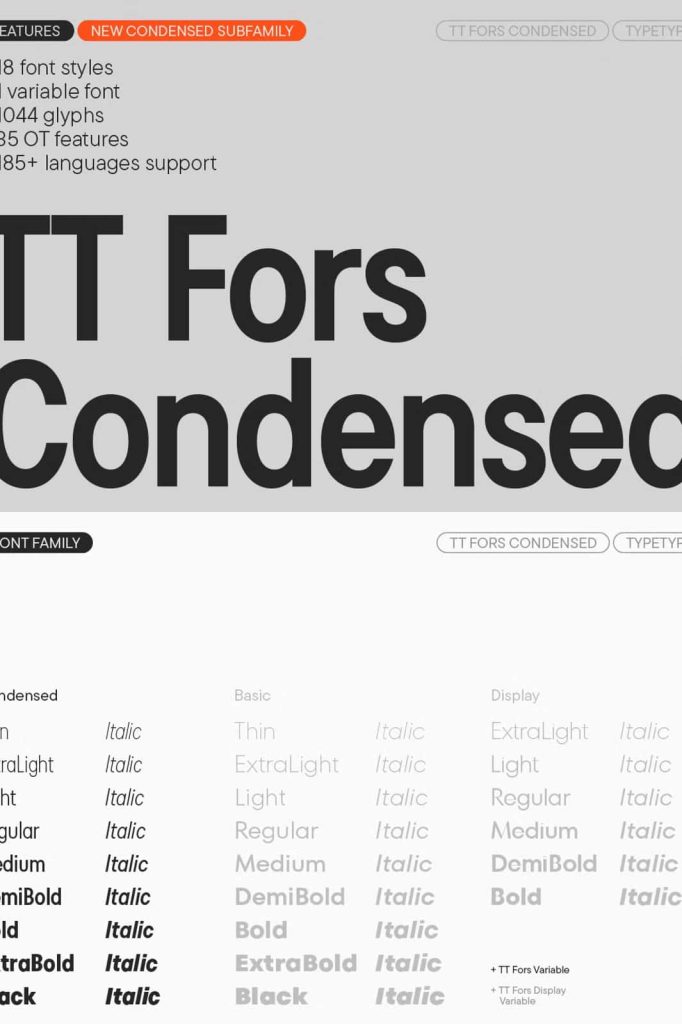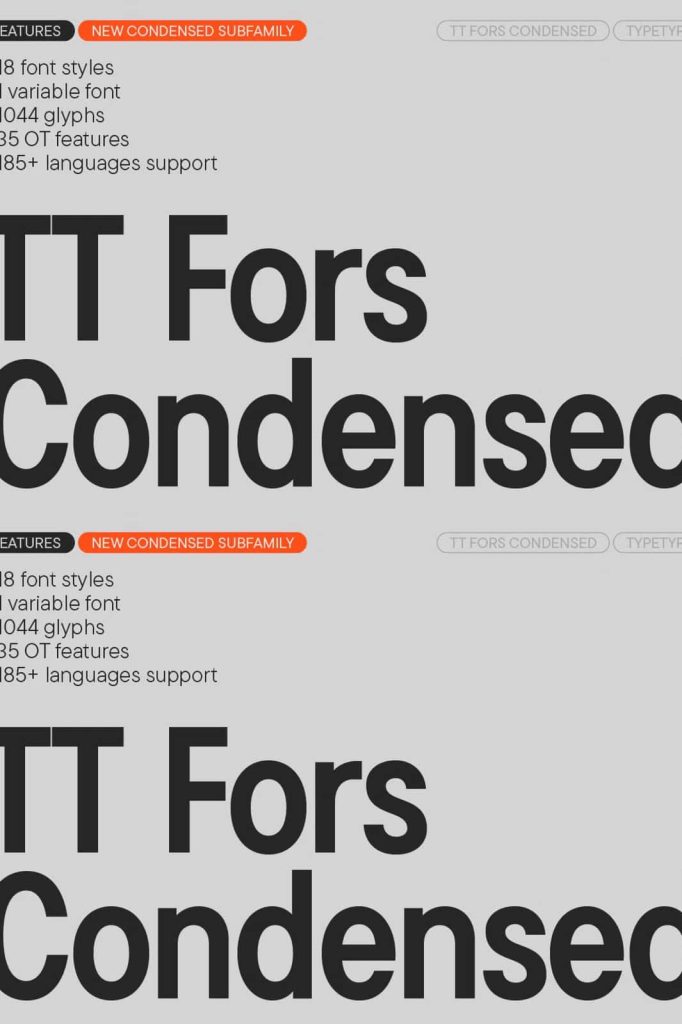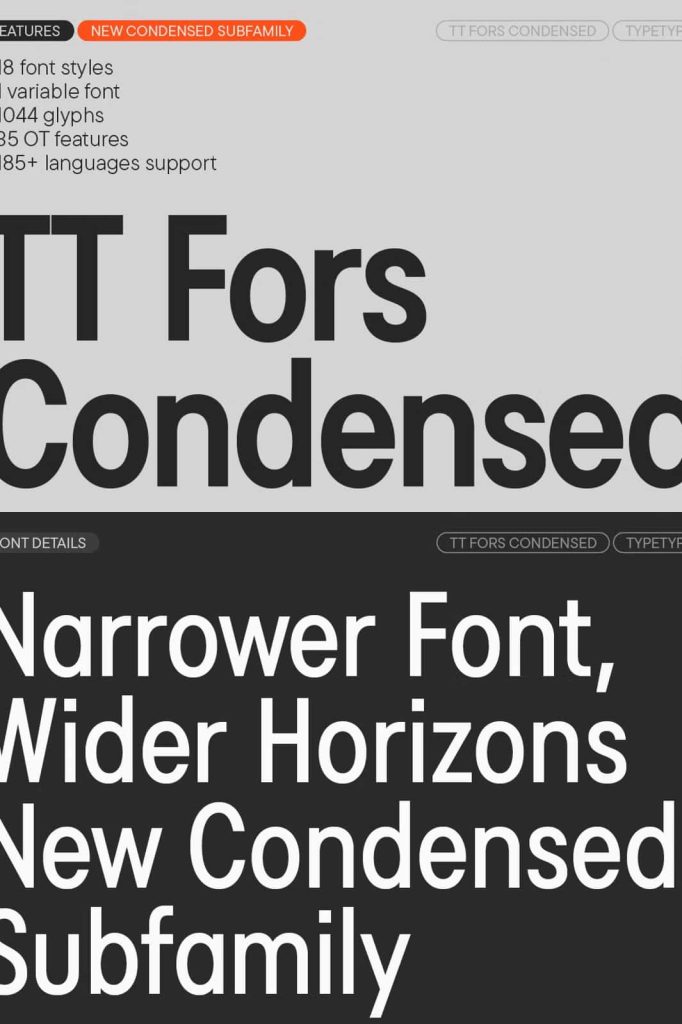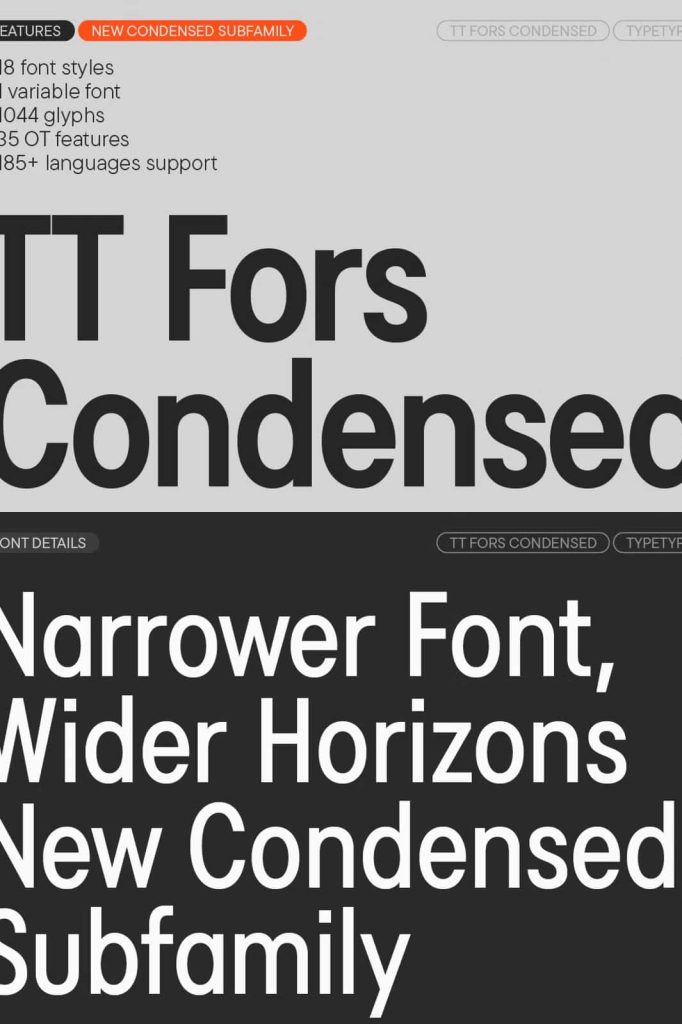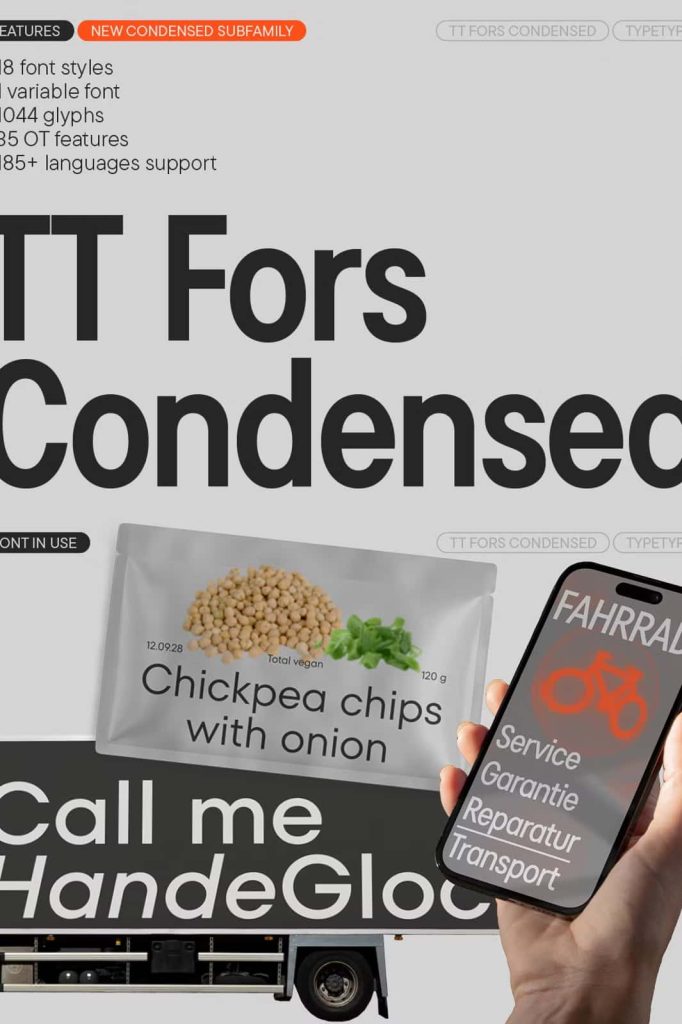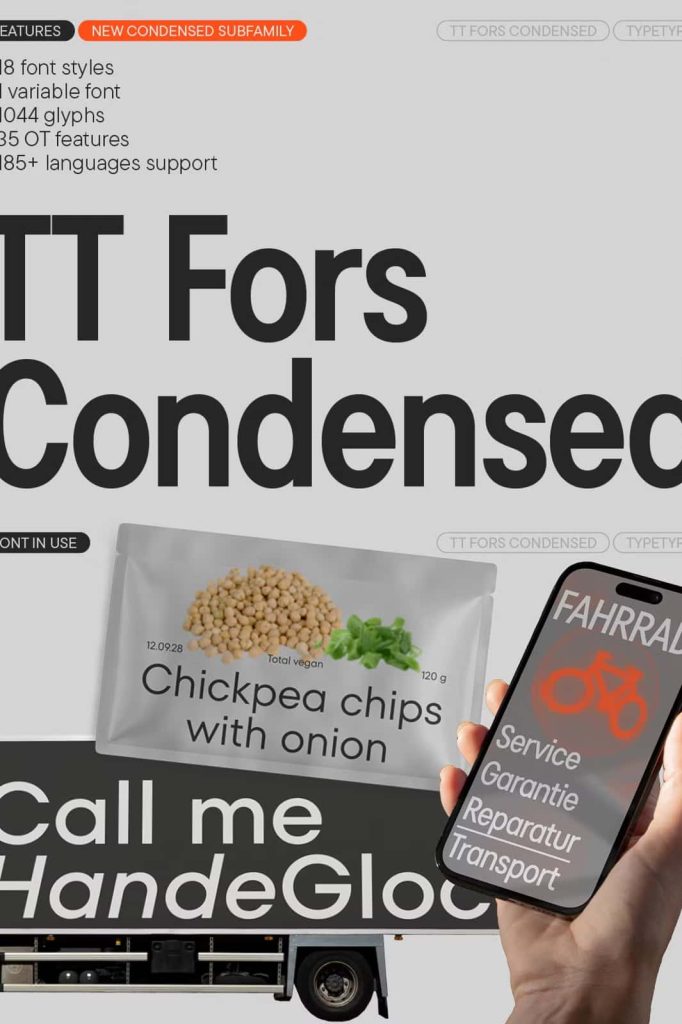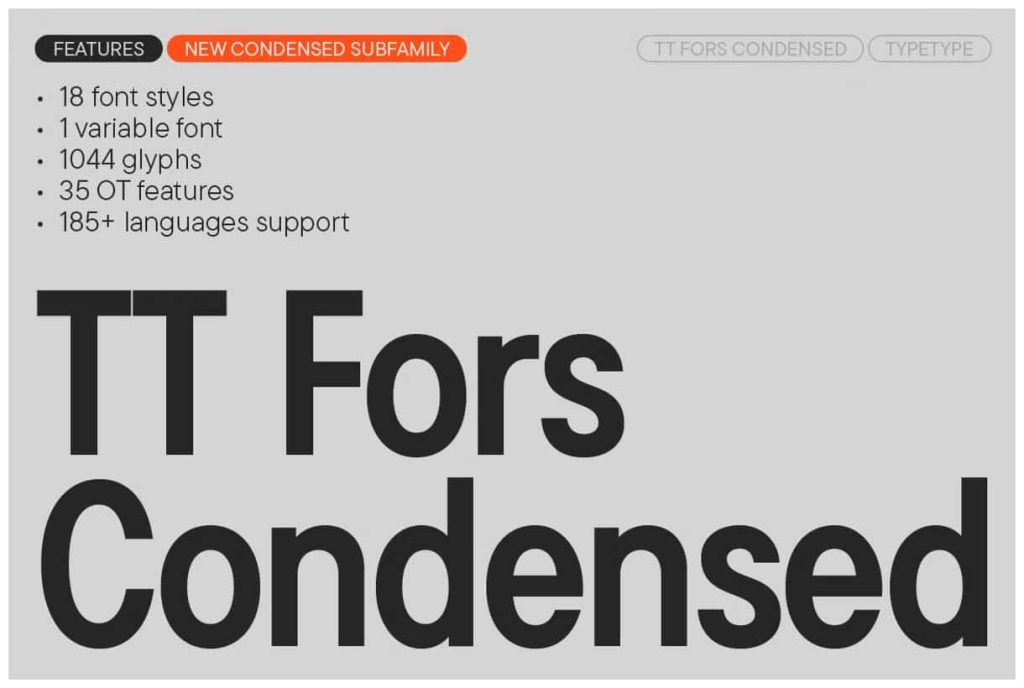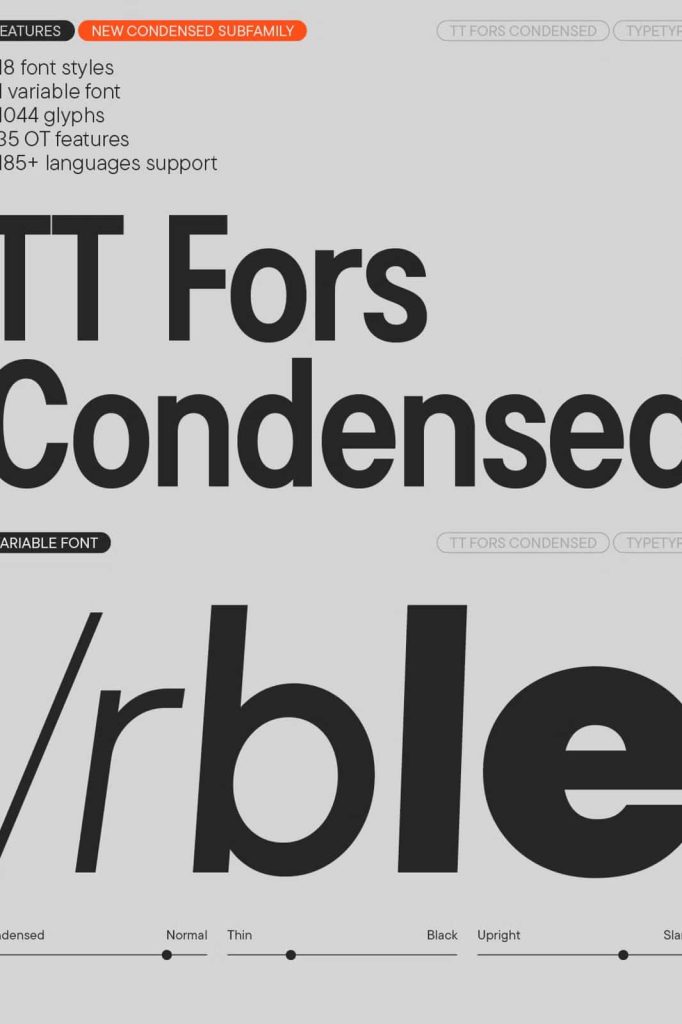
The inspiration for creating TT Fors came from studying geometric sans-serifs from the early to mid-20th century and analyzing their contribution to the visual environment of that time.